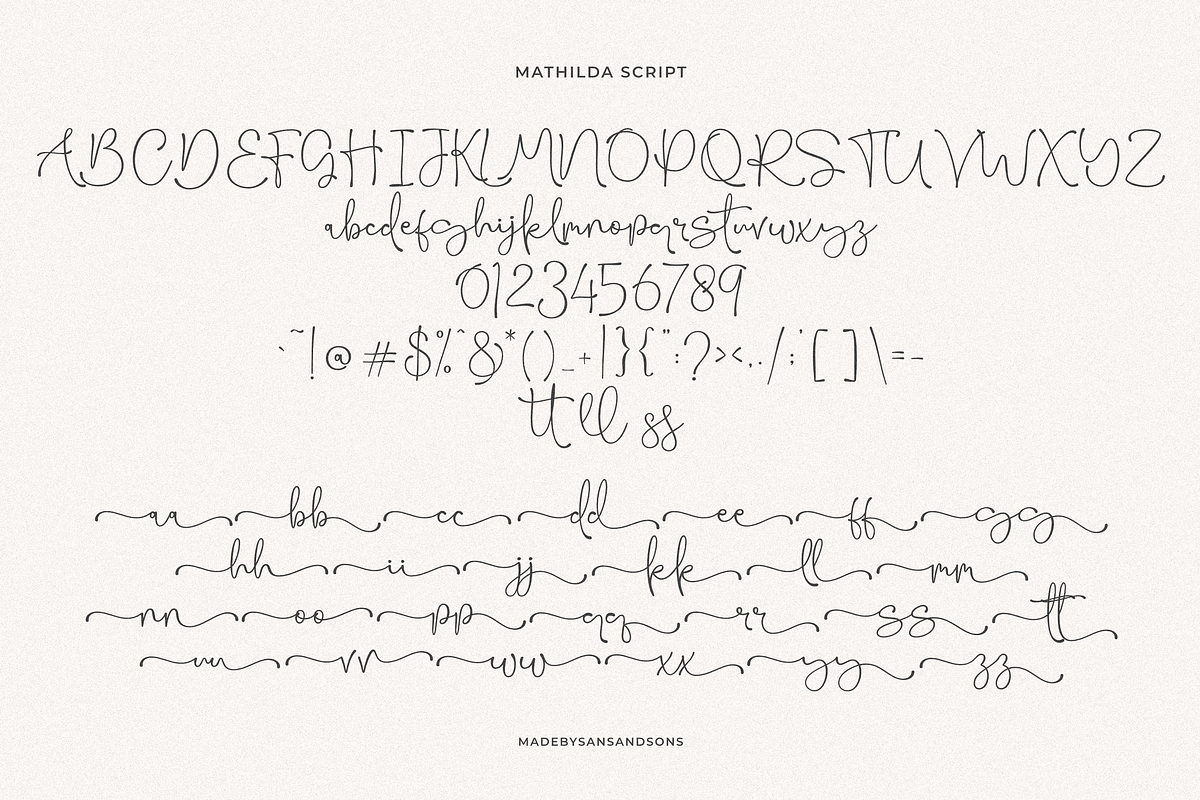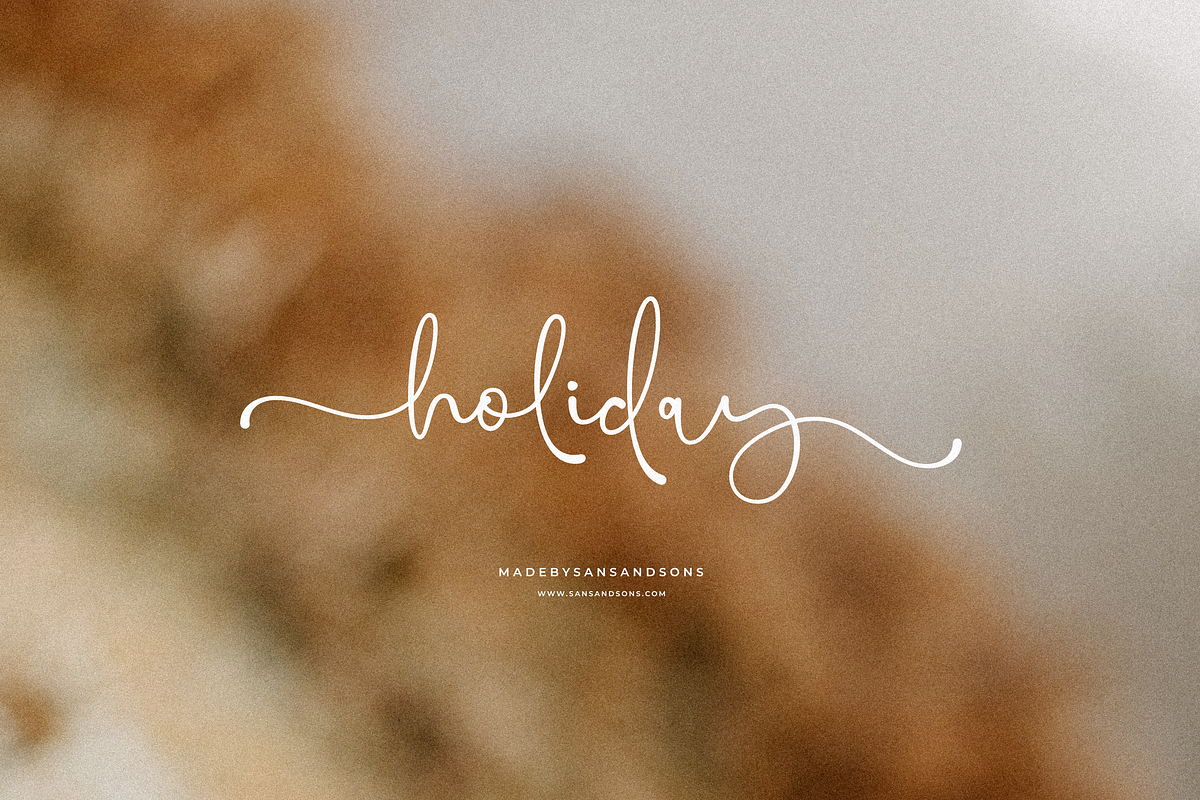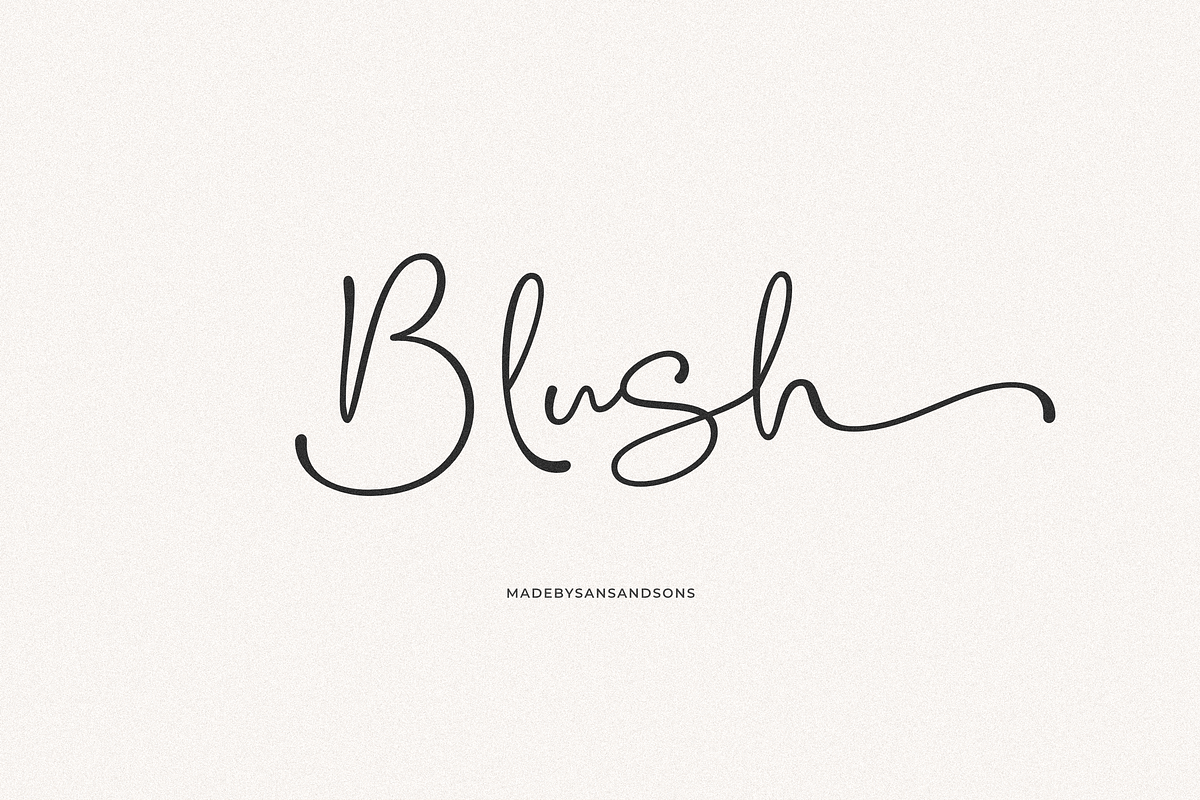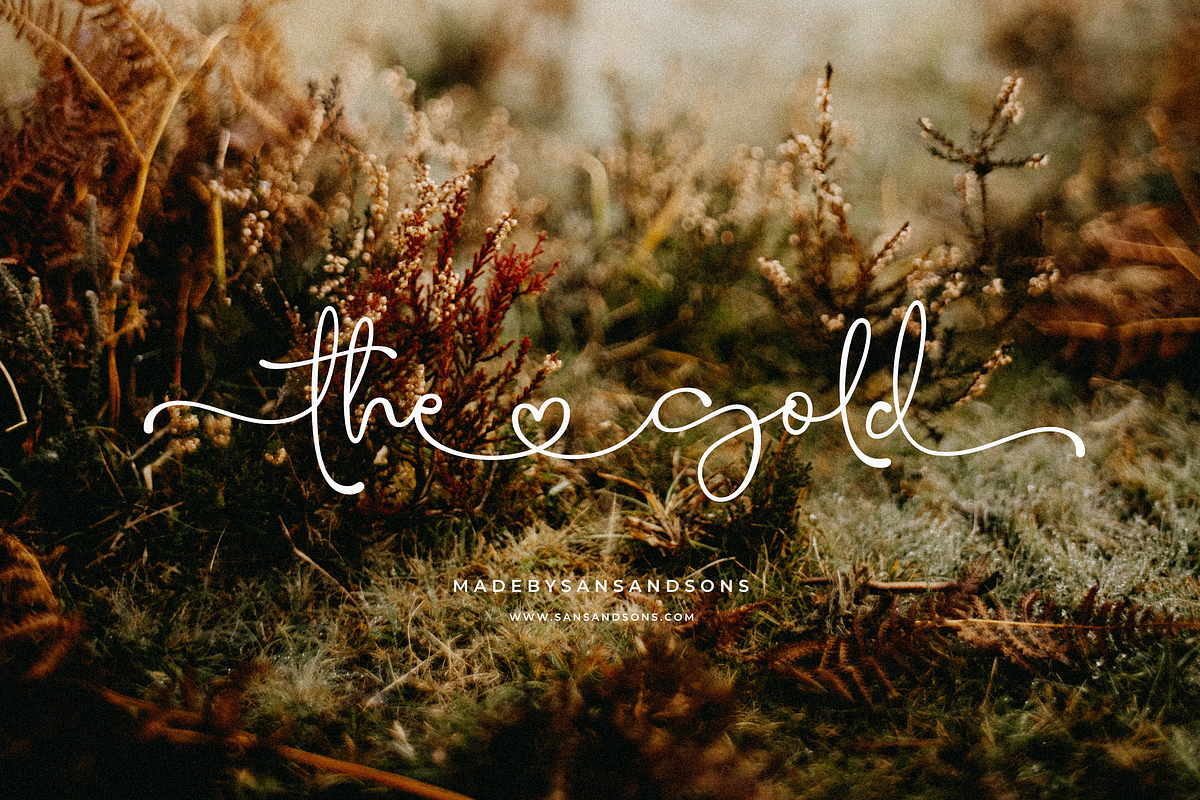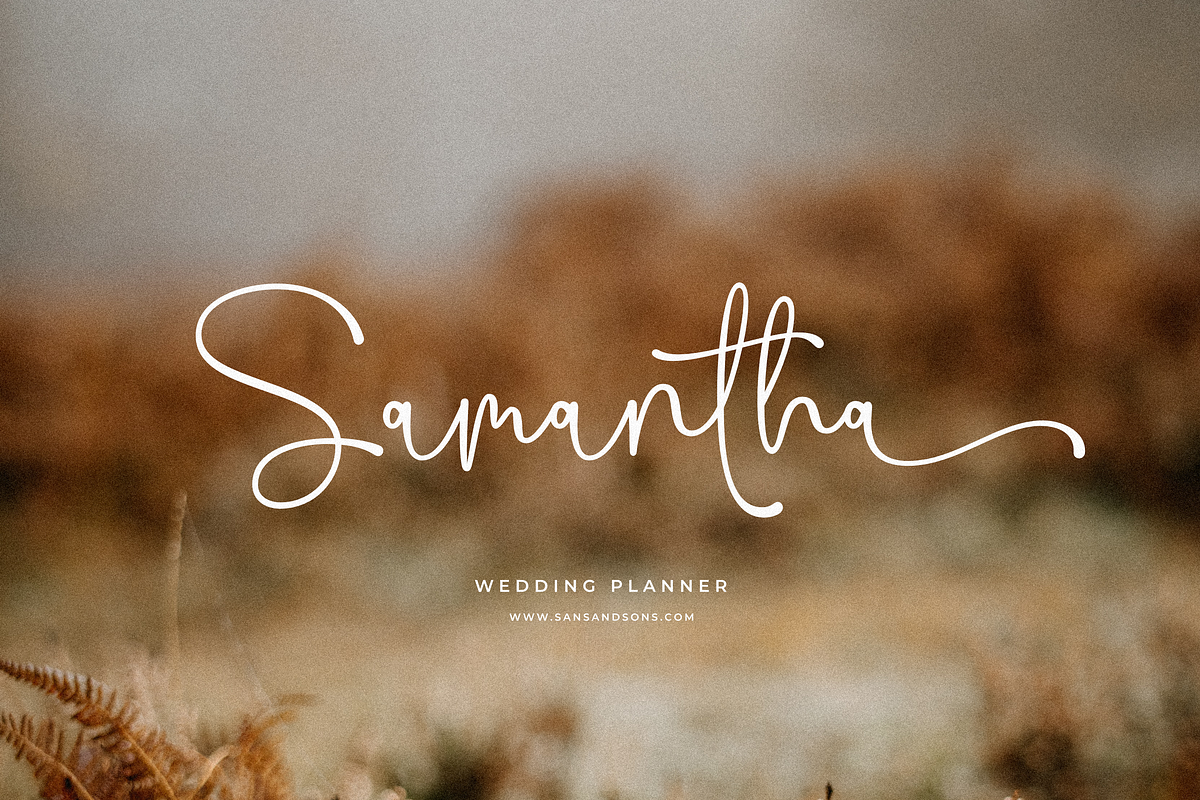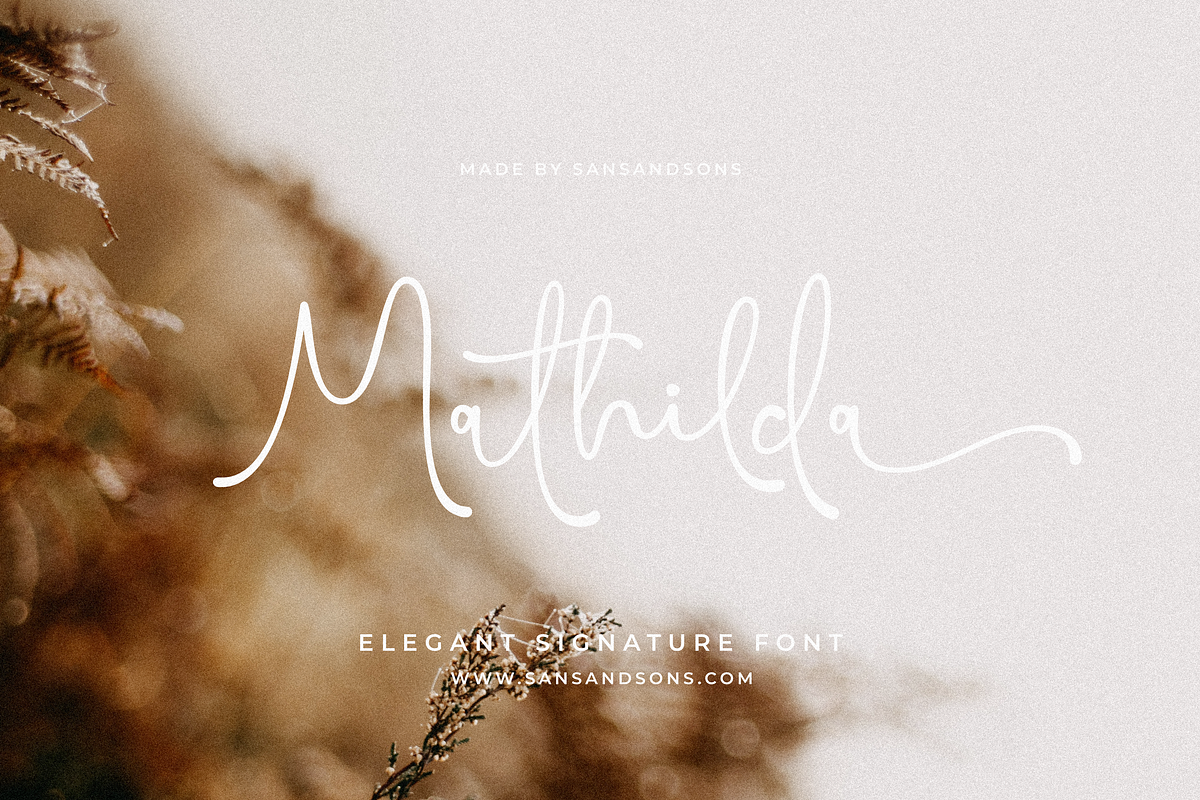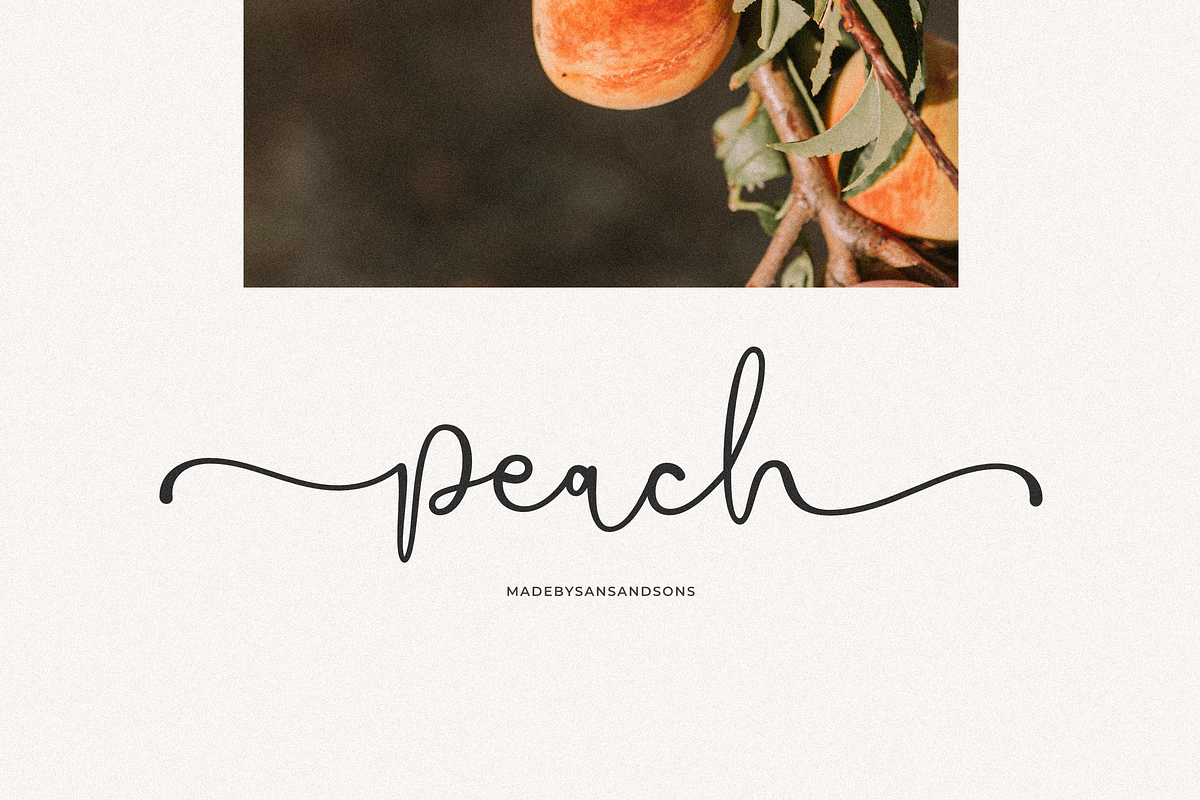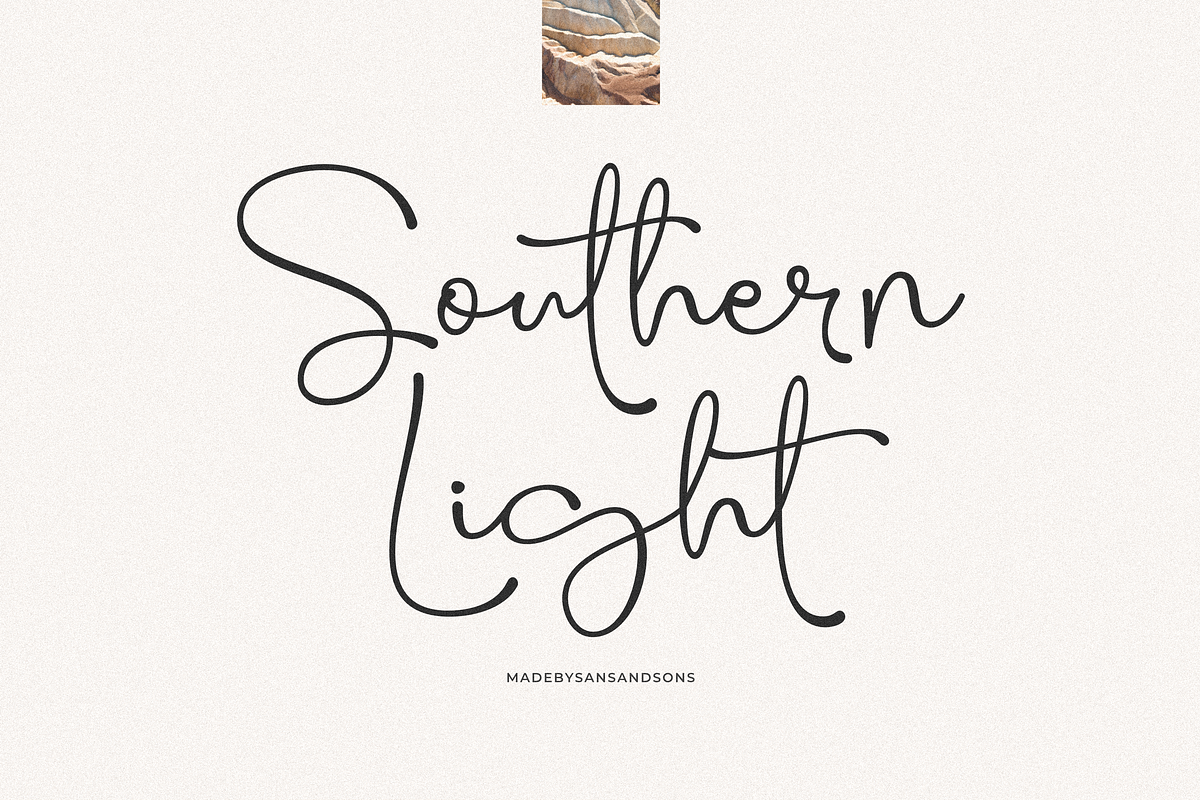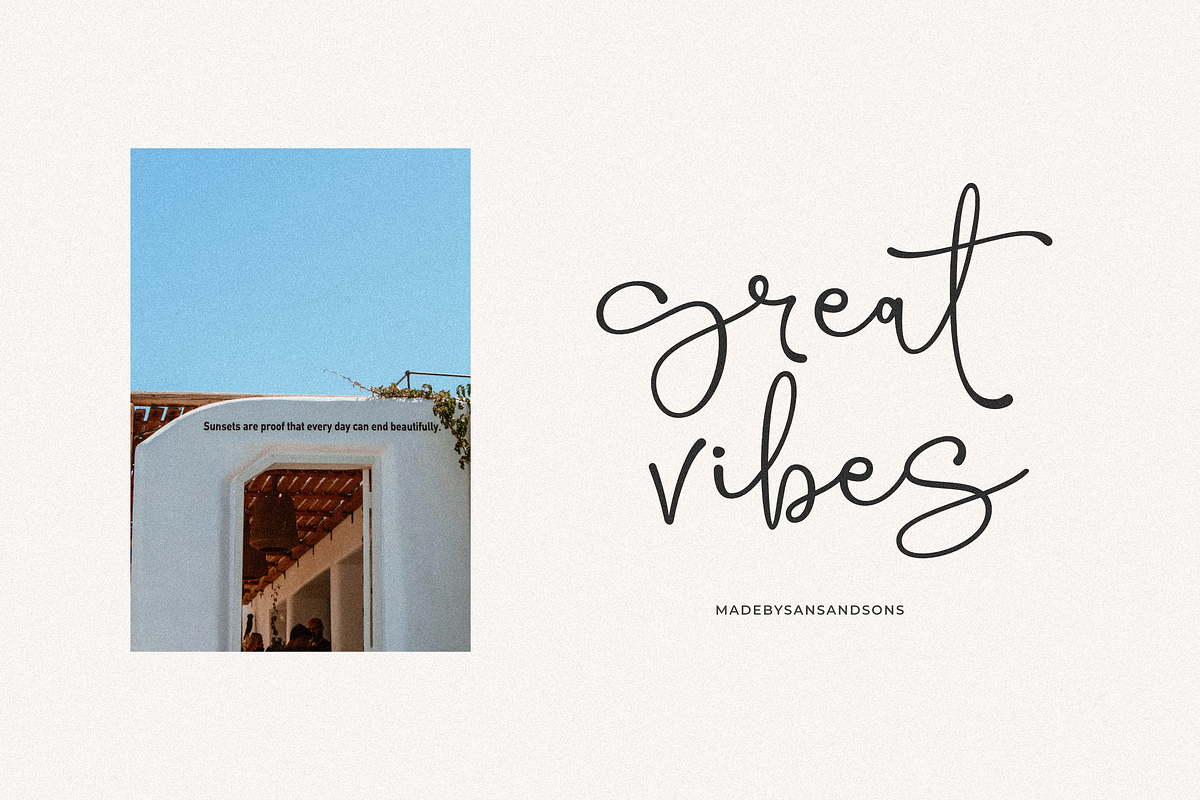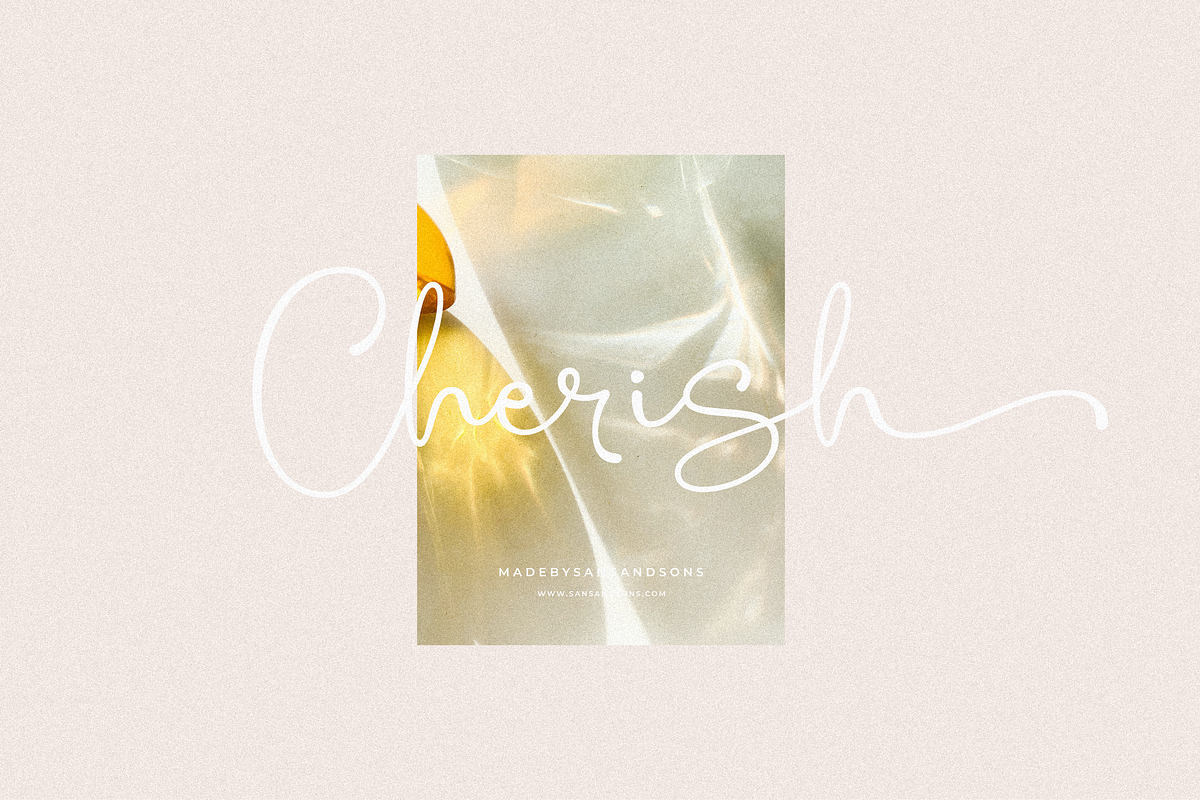
Mathilda - Modern Script
Mathilda - Elegant Script Font by Sans & Sons
Mathilda includes full set of uppercase and lowercase letters, multilingual symbols, numerals, punctuation, alternates, swash and ligatures. The font has organic smooth wet ink texture with Modern Elegant Style this is perfect for branding, logos, invitation, masterheads and more.
Mathilda Features :
- Multilanguange